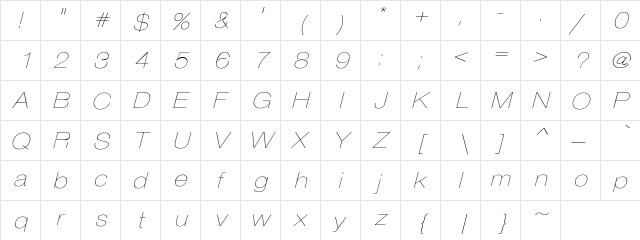
HelveticaExtO 4 Regular Font Preview
HelveticaExtO 4 Regular
Design Context for HelveticaExtO 4 Typeface
HelveticaExtO 4 offers clean, dependable letterforms without strong stylistic allegiance, making it a practical choice for designers who need flexibility.
Pro Tip: Use HelveticaExtO 4 in both headline and body roles to test its range before committing to a single application.